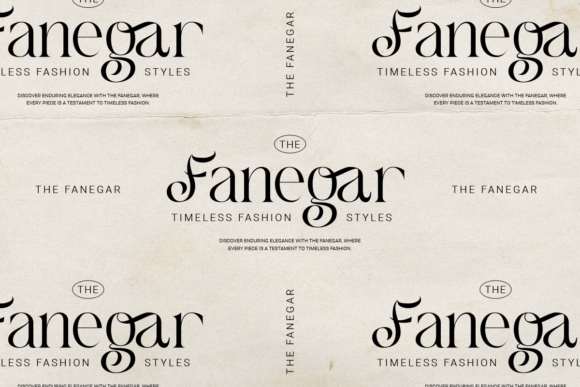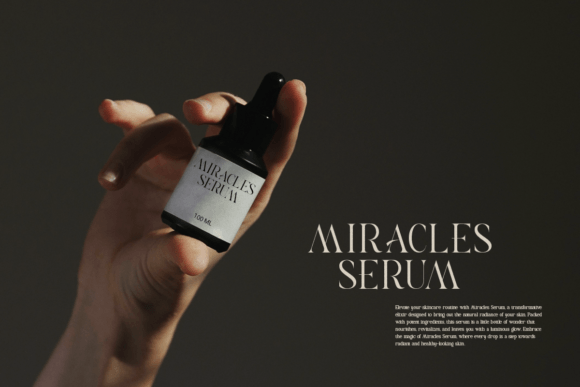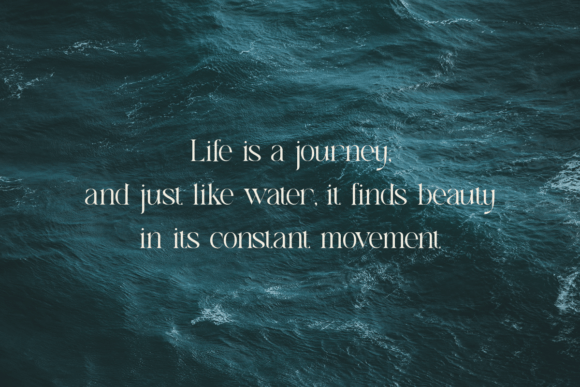
Allegiance Font
Introducing Allegiance, a thin modern elegant serif font that beautifully marries contemporary style with a touch of classic retro charm. This font is designed to elevate your projects with its unique and sophisticated aesthetics, perfect for those who appreciate a blend of the old and the new.Allegiance features distinctive alternates that add versatility and flair to your typography. Its sleek and refined strokes make it ideal for a wide range of design applications, from premium corporate branding and cinematic posters to art deco-inspired invitations and college materials.With influences from timeless serif fonts and the modern minimalism of fonts like Helvetica and Futura, Allegiance stands out with its unique fusion of styles. The font’s subtle retro touch evokes a sense of nostalgia while maintaining a contemporary edge, making it perfect for high-end projects that require a premium look.Whether you’re working on love-themed designs, funky event materials, or creating nature-inspired graphics, Allegiance adds an element of elegance and sophistication. Its versatility makes it suitable for summer and tropical themes, minimalistic layouts, and even beach-inspired projects. The font’s cinematic quality ensures that your designs are always eye-catching and stylish.Allegiance is not just a font; it’s a statement. It embodies the perfect balance between modern minimalism and retro elegance, making it an ideal choice for those who seek to create beautiful, timeless designs with a cursive touch and futuristic vibe.Experience the charm and elegance of Allegiance, a serif font that combines thin, graceful lines with unique alternates and a touch of classic retro, offering a truly unique and stylish typographic solution for all your design needs.